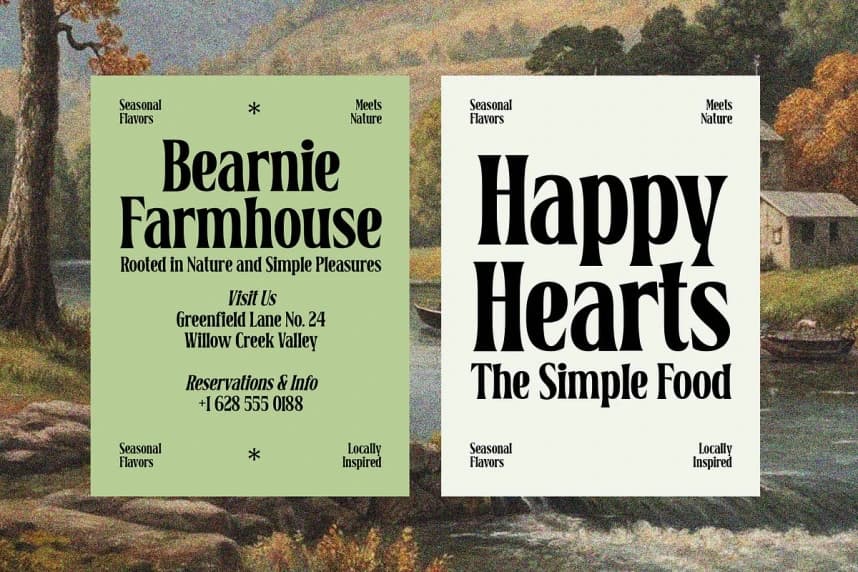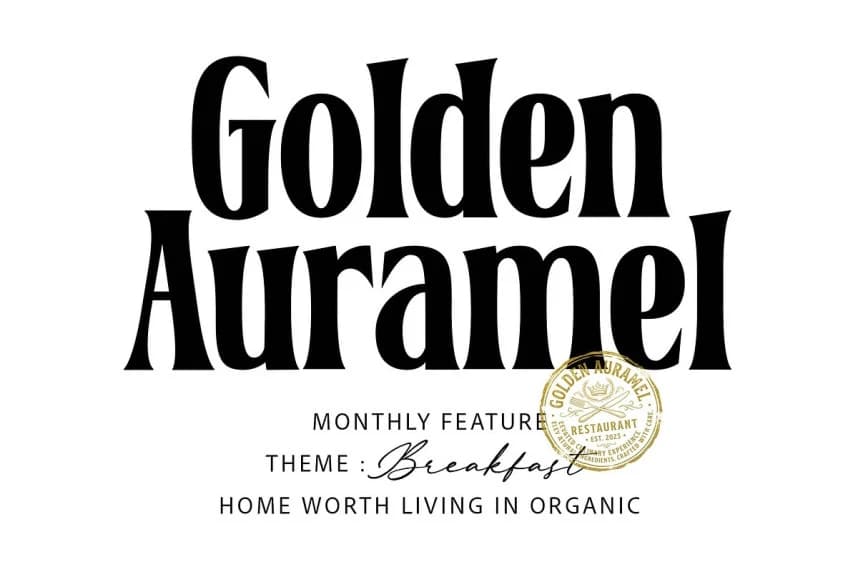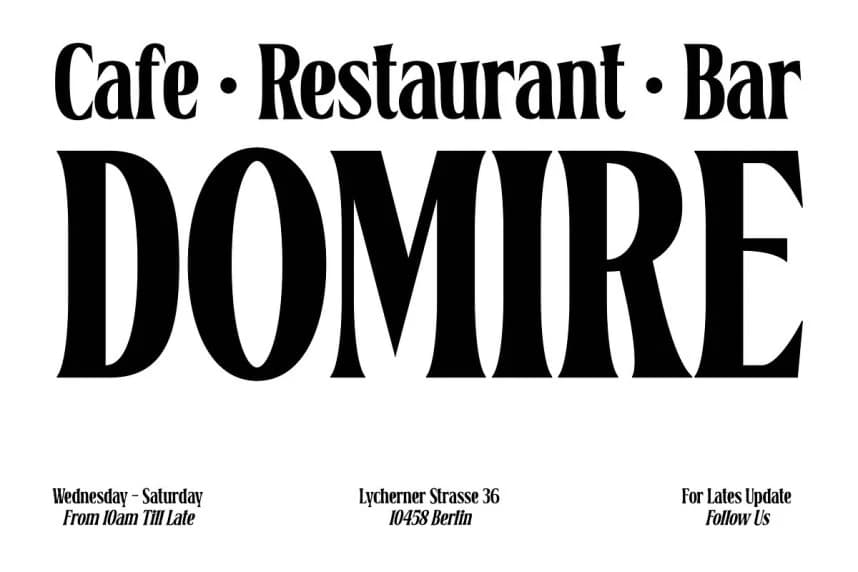
Belgino Font
Belgino Font is a modern stylish serif font designed to bring elegance, personality, and high-end character into your typography. With its bold curves, sharp serifs, and distinctive letterforms, Belgino delivers a perfect balance between classic sophistication and contemporary style.